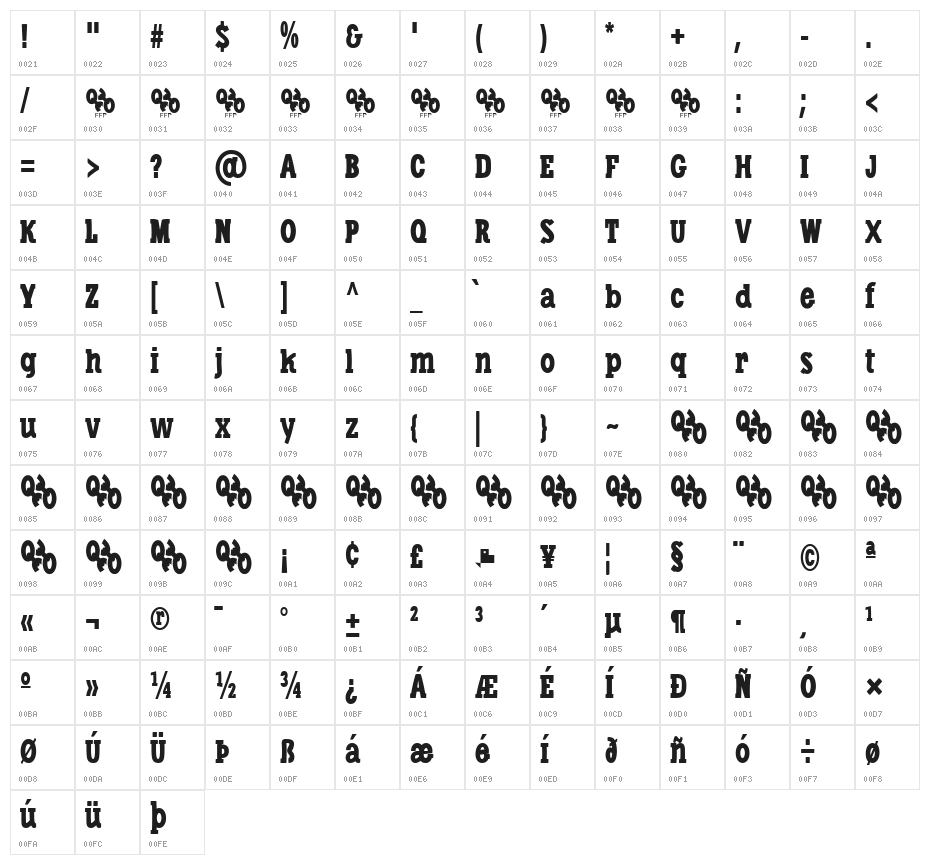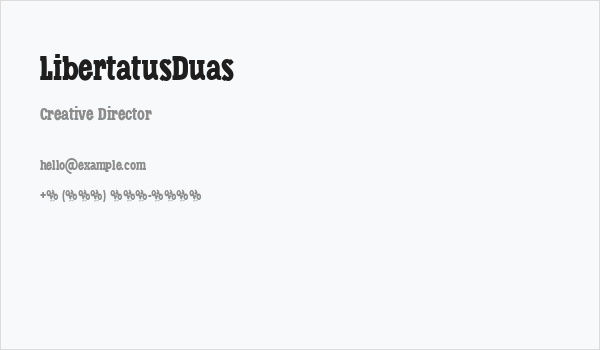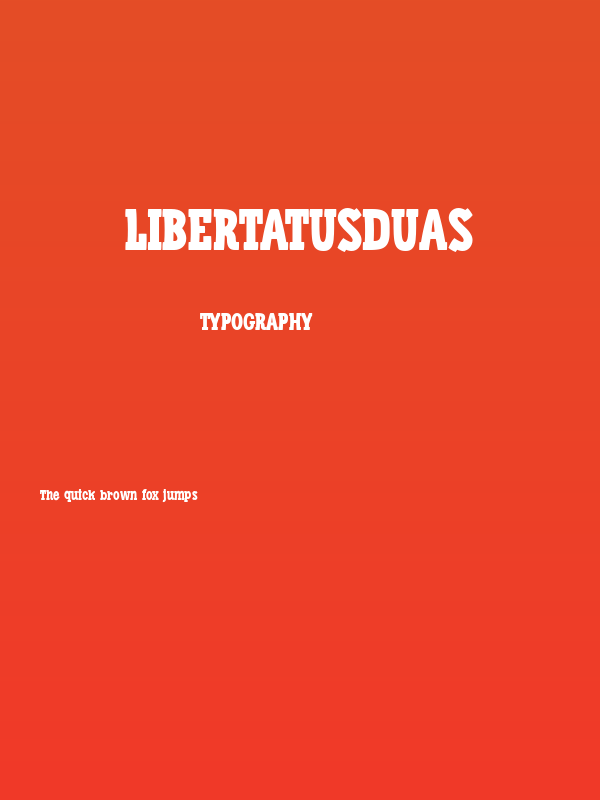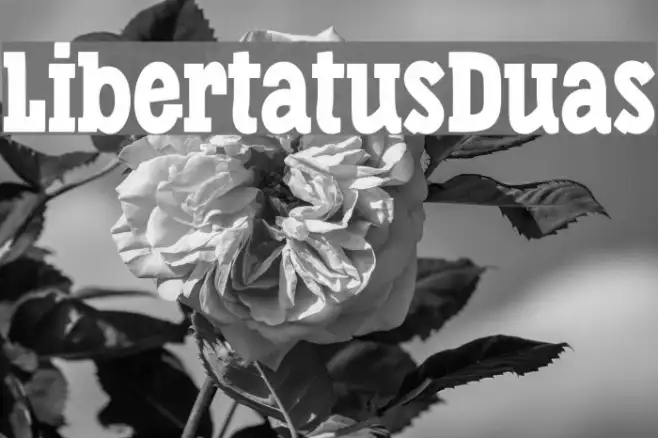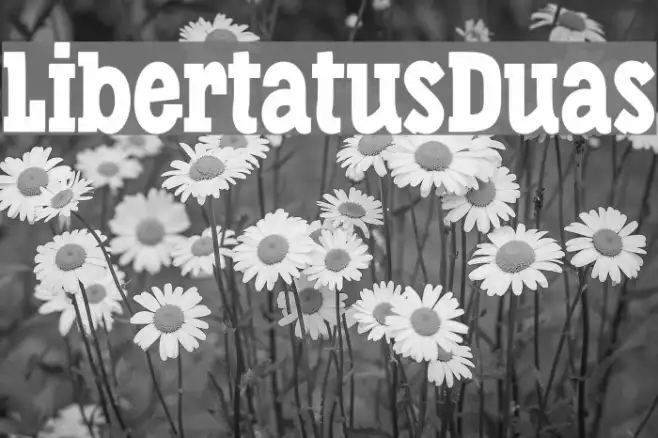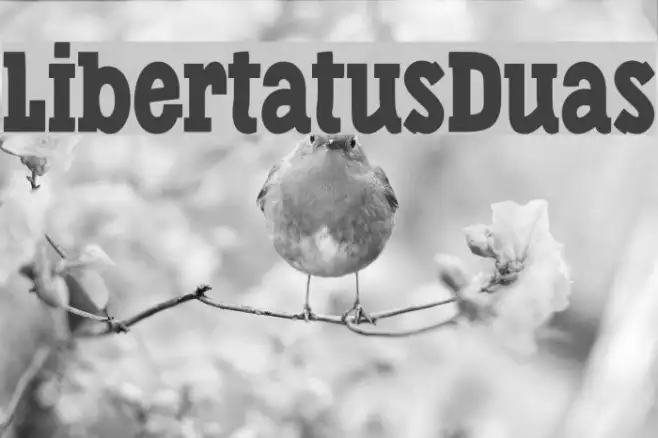
LibertatusDuas Font
LibertatusDuas Description
This font features a bold and robust design, characterized by thick, block-like serifs and a strong presence. The uppercase letters are particularly striking, with a uniform height and width that convey a sense of stability and authority. The lowercase letters maintain this boldness while offering a slightly more compact form, ensuring readability. The numerals and special characters are designed to match the overall weight and style, providing consistency across all text elements. This font's high contrast in stroke thickness enhances its legibility and visual impact, making it suitable for attention-grabbing headlines and titles.
| Overall Style | Classic |
| Proposed Projects | Ideal for use in headlines, posters, branding materials, and any project requiring a strong, authoritative typeface. |